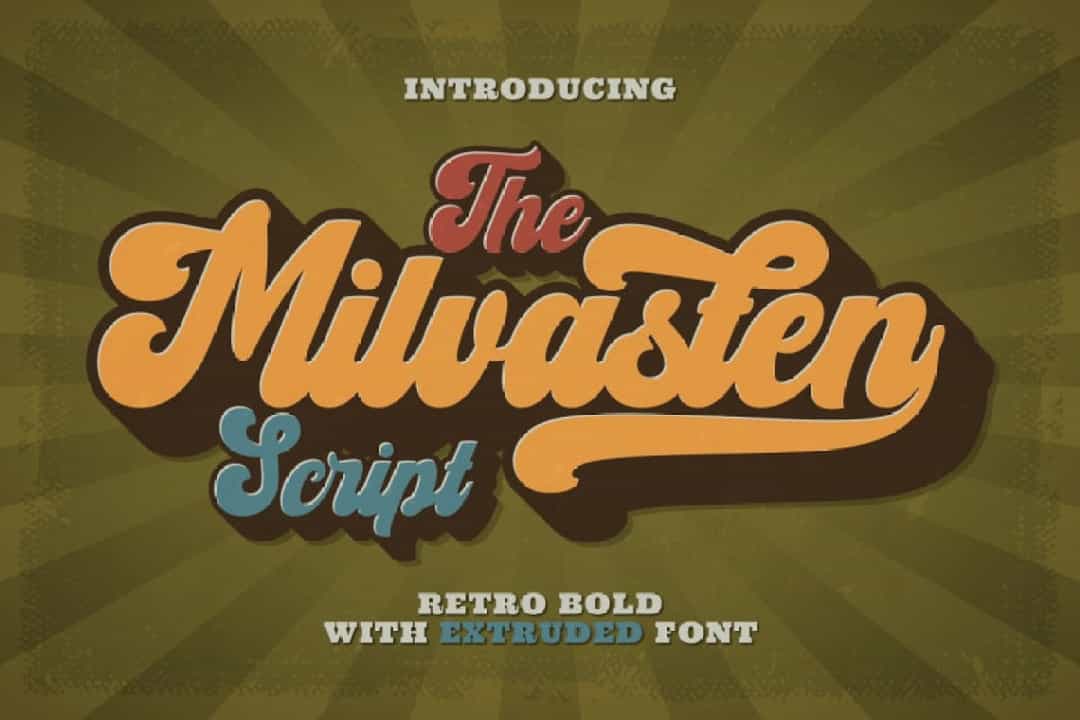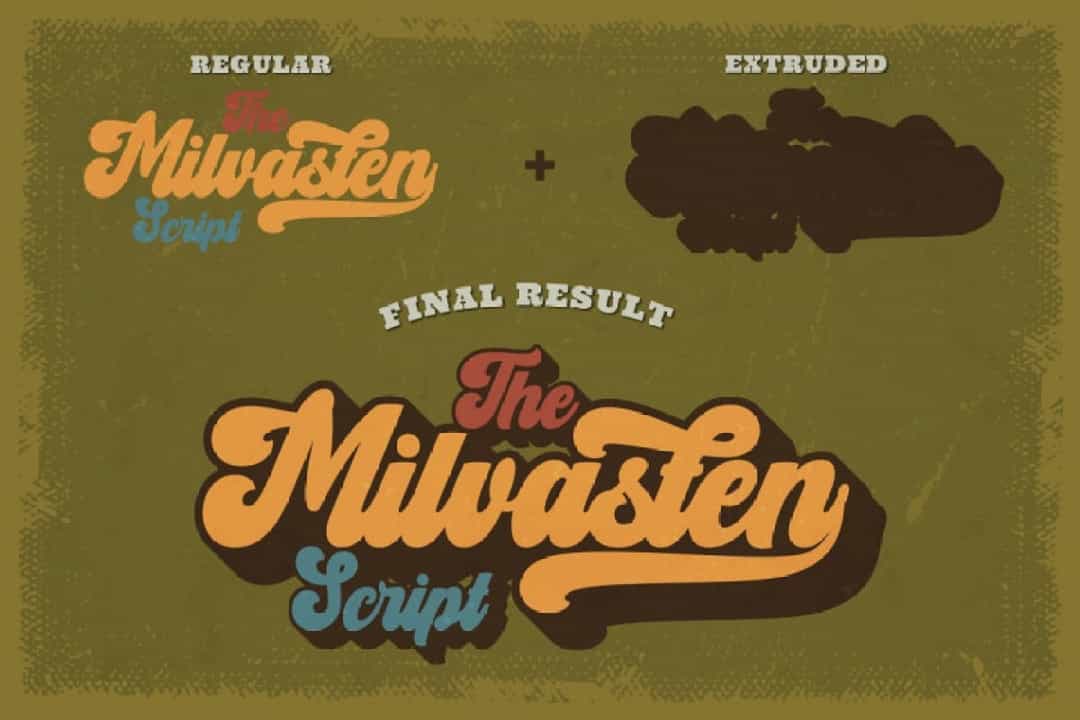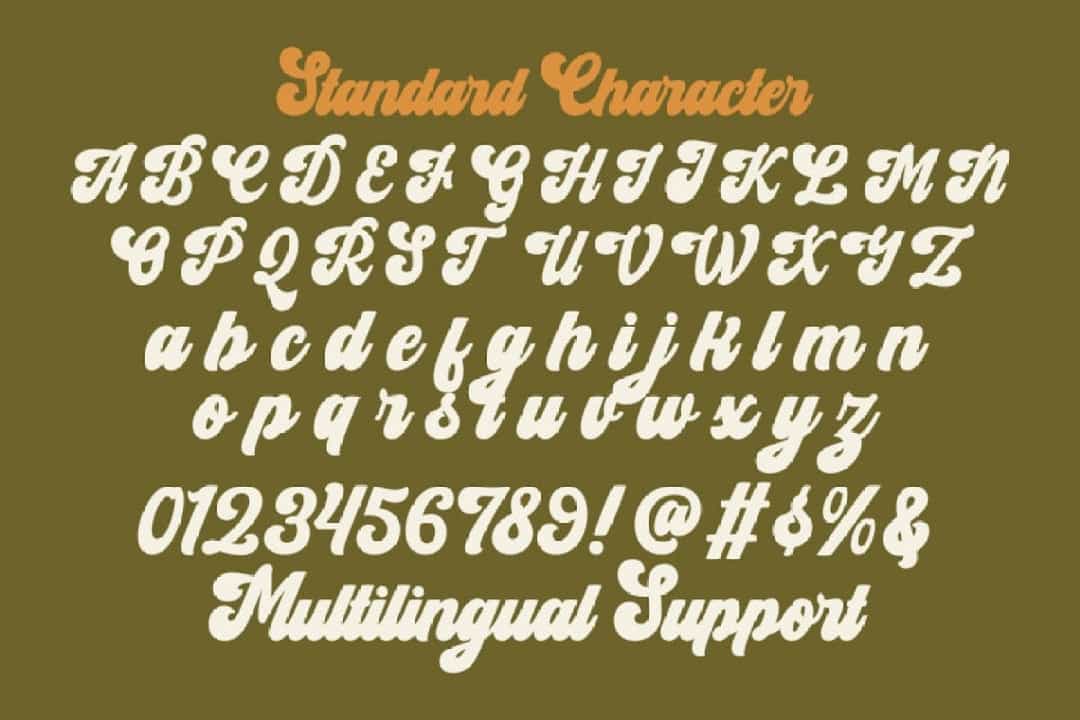
Milvasten is a charming retro-style script display font, ready to elevate your designs to new heights. Put this font to use in retro stickers, posters clothing or social media posts – your followers are sure to be impressed. PUA encoded for ease of access swashes glyphs characters!